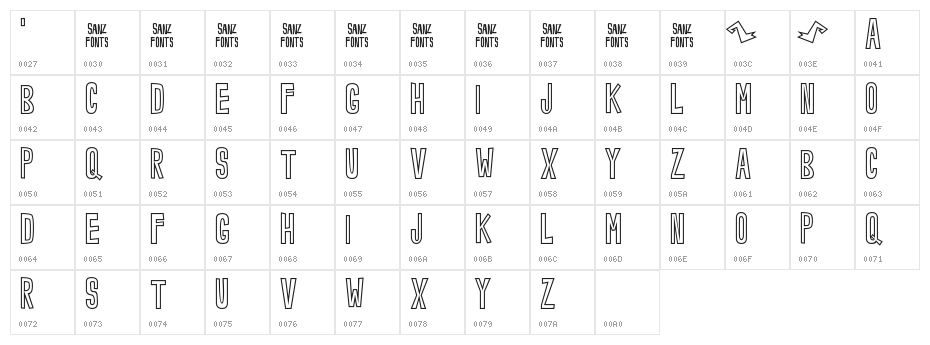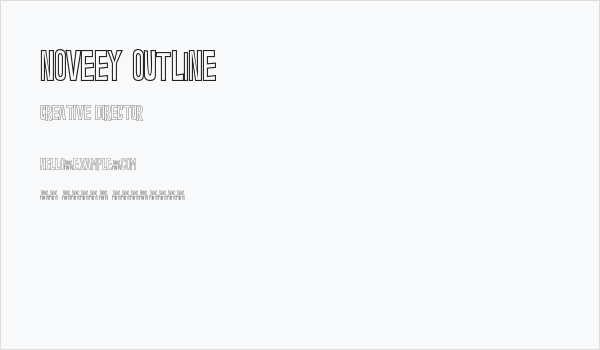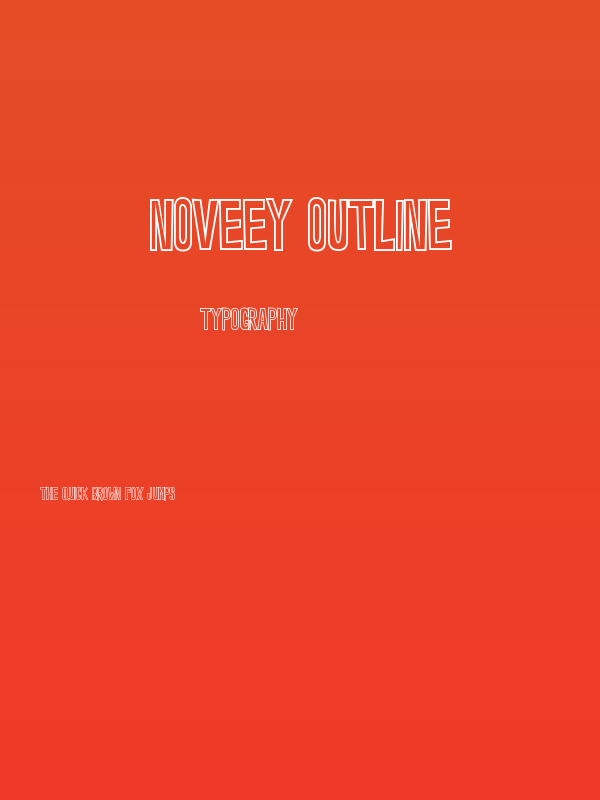
Noveey Outline Font
Noveey Outline Description
This font features a bold, outlined style that emphasizes each character with a strong, clear contour. The uppercase letters are tall and commanding, while the lowercase letters maintain a consistent height, providing a balanced appearance. The geometric structure of the characters gives it a modern and clean look, making it suitable for attention-grabbing designs. The spacing between characters is normal, allowing for readability without losing its distinctive style. The font's outlined nature adds a unique touch, making it stand out in various design contexts.
| Proposed Projects | Ideal for posters, headlines, logos, and branding materials where a bold statement is needed. |